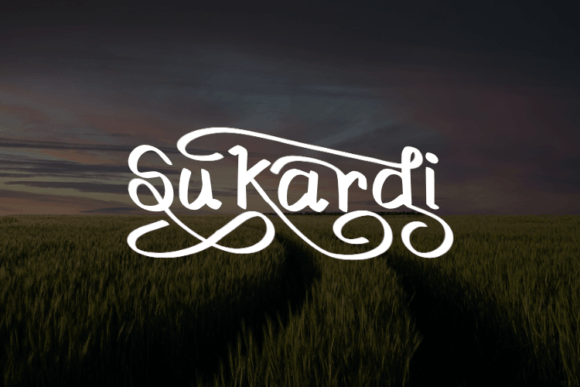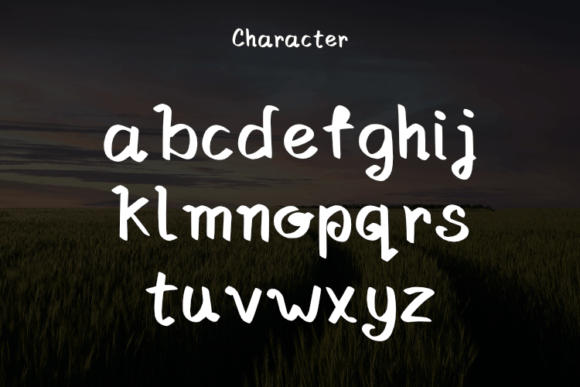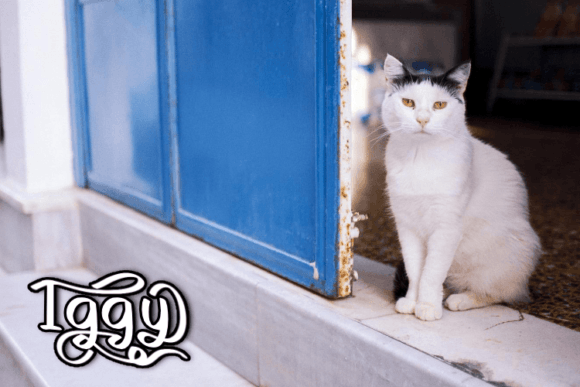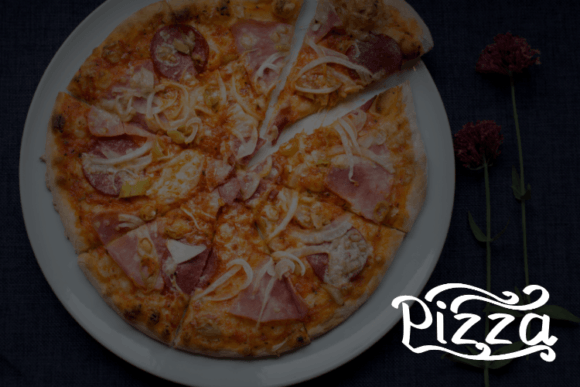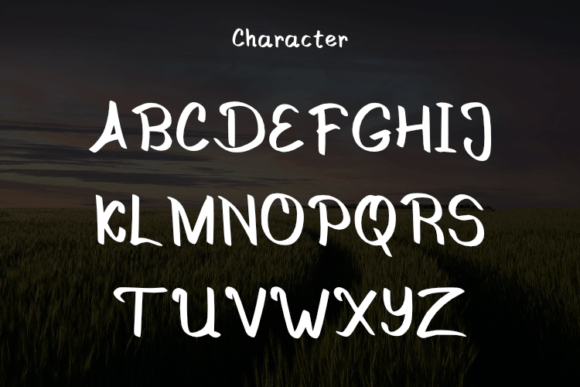
About Sukardi Font
“Sukardi is a sophisticated script typeface that combines simplicity with a modern aesthetic. Its clean lines and contemporary style make it a perfect choice for creating elegant and luxurious designs. This versatile typeface is well-suited for a wide range of applications, including logos, book and movie design titles, fashion brands, magazines, clothing, fonts, quotes, and more.
What sets Sukardi apart is its timeless elegance. The font’s simple yet refined design exudes sophistication, making it ideal for projects that require a touch of class and luxury. Whether you’re designing a high-end logo for a luxury brand, creating stylish magazine layouts, or crafting elegant quotes for inspirational content, Sukardi elevates your designs with its sleek and modern look.
Sukardi’s versatility allows it to adapt seamlessly to various design contexts. Its smooth and flowing characters add a touch of fluidity and grace to your text, creating a harmonious balance that enhances readability and visual appeal. The typeface’s minimalist style ensures that your message takes center stage, while its modern look adds a contemporary edge to your designs.
Incorporating Sukardi into your projects is like adding a dash of sophistication and refinement. Its simple yet modern script effortlessly communicates elegance, making it a valuable asset for designers aiming to create upscale and stylish visuals. Whether you’re working on branding materials, editorial layouts, or promotional content, Sukardi adds a touch of luxury that leaves a lasting impression on your audience.
Sukardi is more than just a font; it’s a statement of elegance and modernity. Its simple style and modern look make it a versatile choice for designers seeking a font that exudes sophistication. Embrace the timeless appeal of Sukardi and let it transform your designs into elegant and luxurious creations that resonate with viewers, leaving a lasting impression of sophistication and style.”